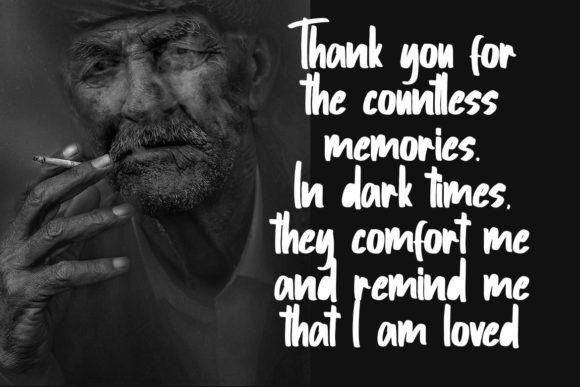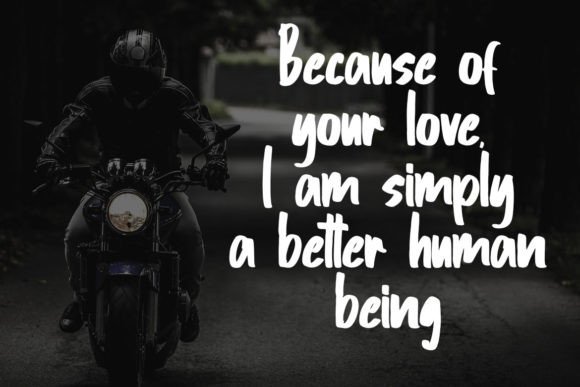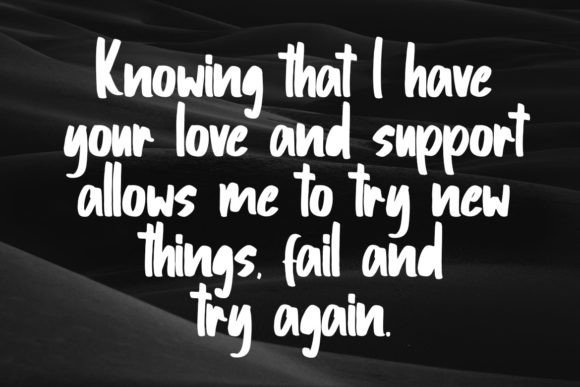
About Qalbite Font
Qalbite is a unique, bold, and elegant handwritten font. It looks beautiful on a variety of designs requiring a personalized style.